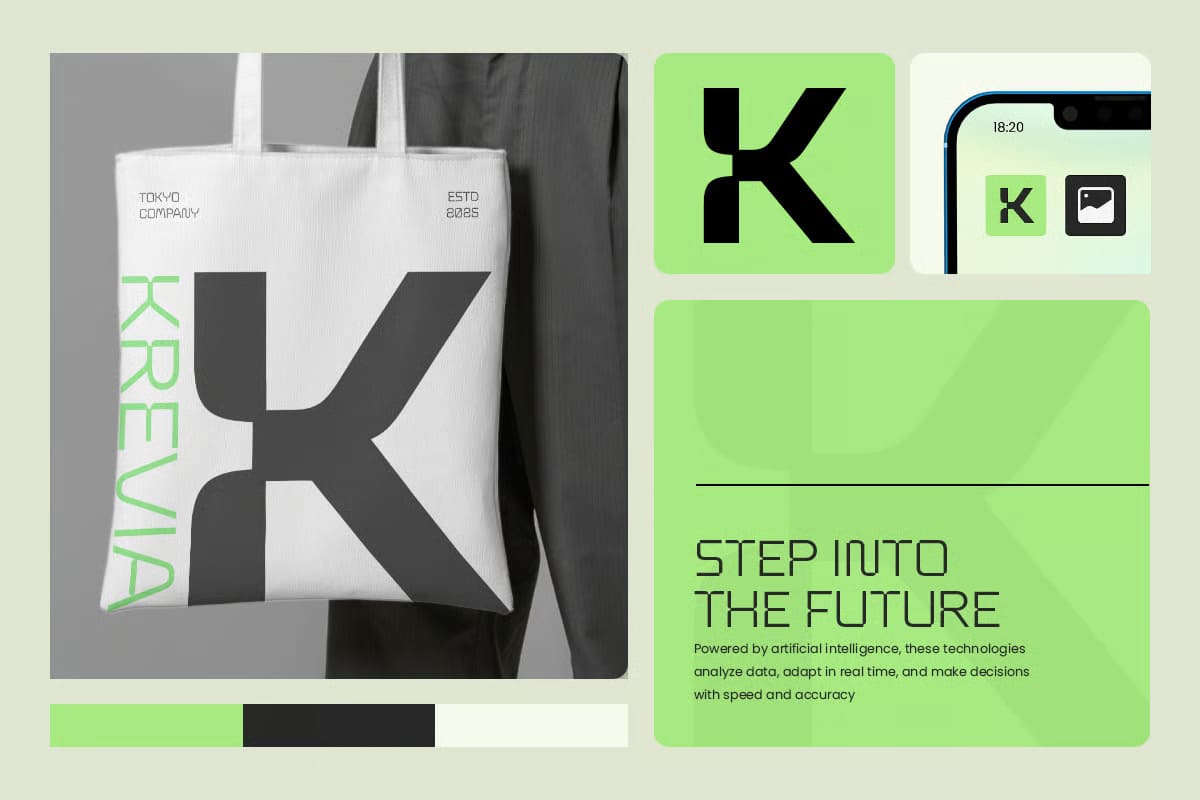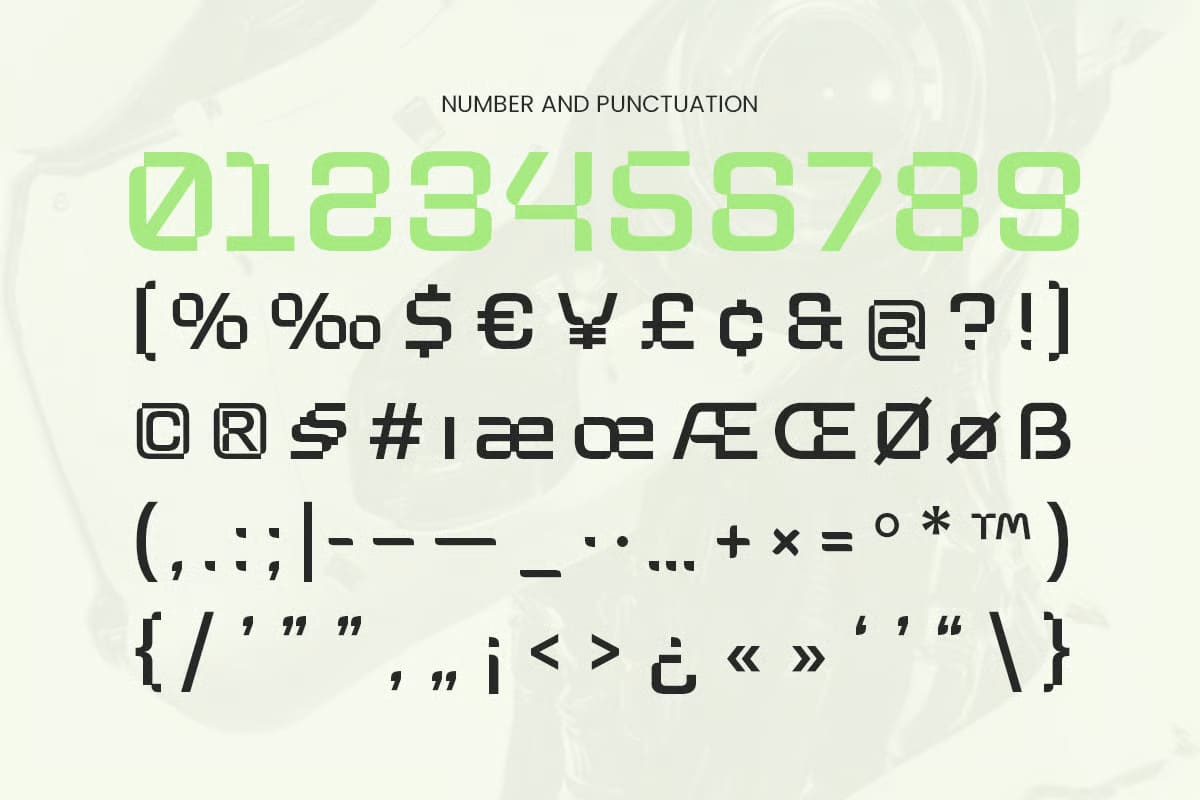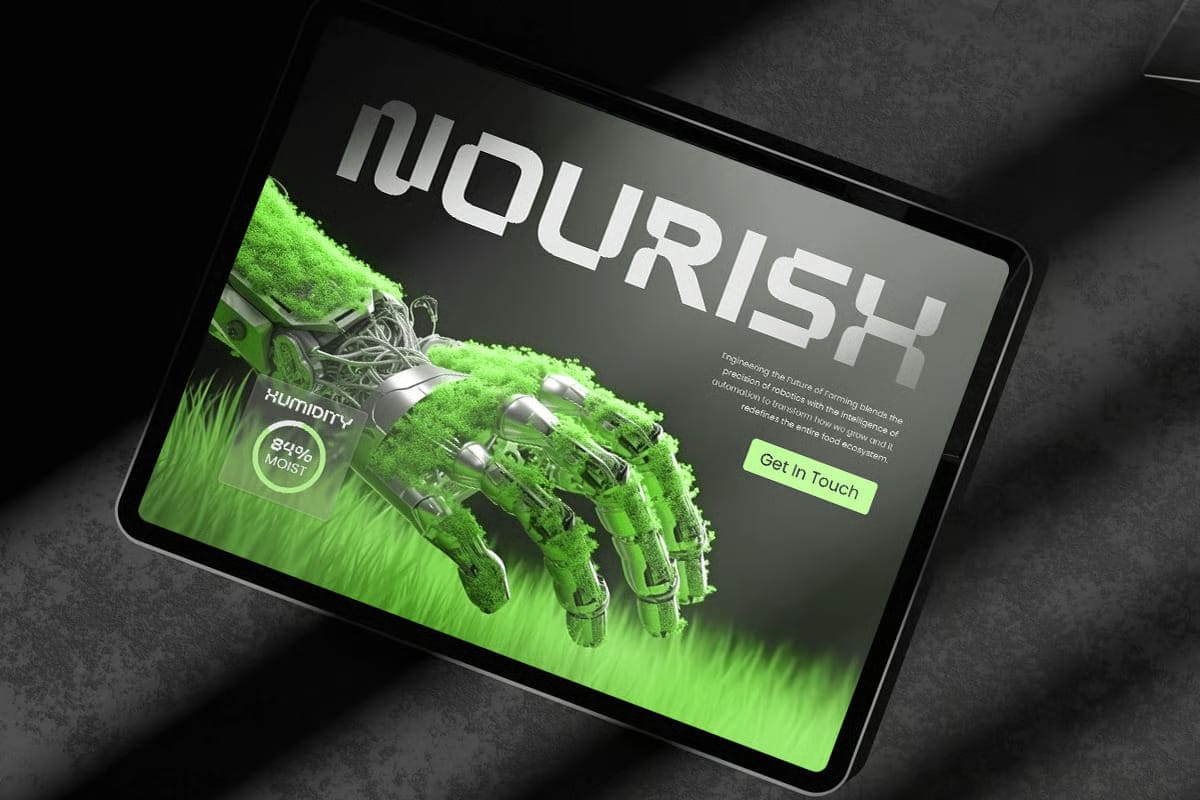
Texar is a modern technology-focused font family built for digital design and branding. It has clean lines and a geometric structure, giving it a sharp and professional look that fits well with tech-related projects.
The font comes with multiple weights and styles, making it easy to keep a consistent design across different platforms. It works well for UI/UX design, websites, apps, and corporate branding where a simple and modern style is needed.
Its minimal design keeps everything clear and readable, while the strong shapes give it a more futuristic feel without being hard to use.
- 3 weights: Light, Regular, Bold
- Multiple styles for flexible use
- Uppercase, lowercase, numbers and punctuation
- OpenType features including alternates and ligatures
- Clean and modern geometric design
- Suitable for tech branding and UI design
- Wide multilingual support